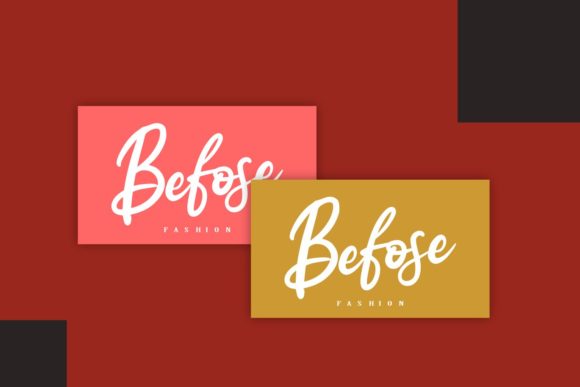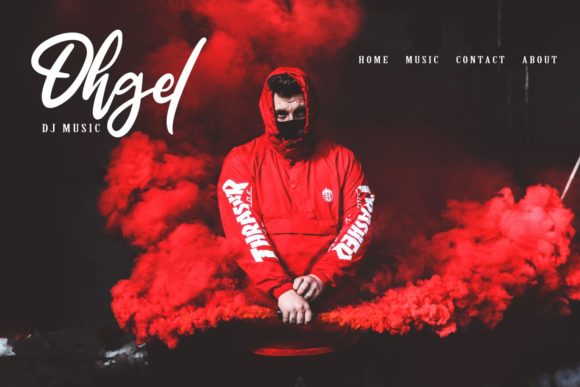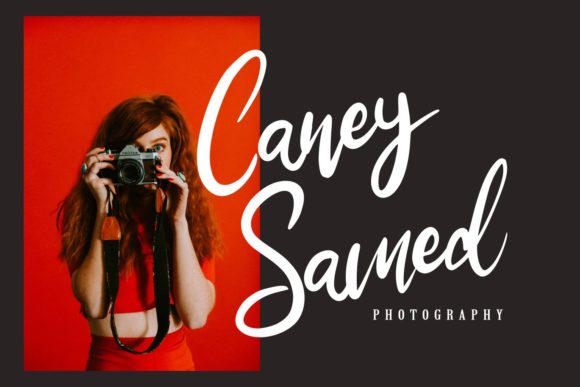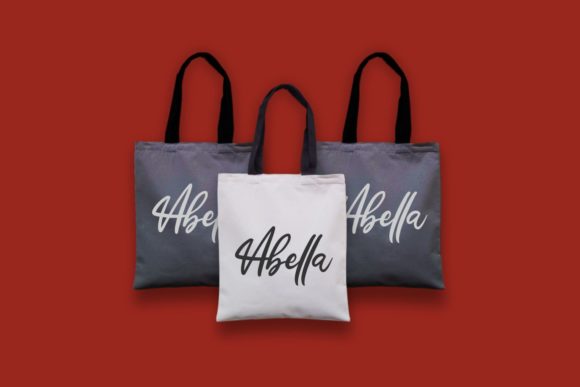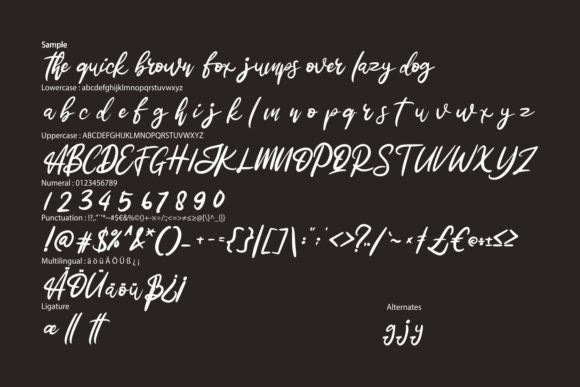
Watterland Font
About Watterland Font
Watterland is a classy and modern script that’s extremely versatile. This unique font will take any design project to the next level.